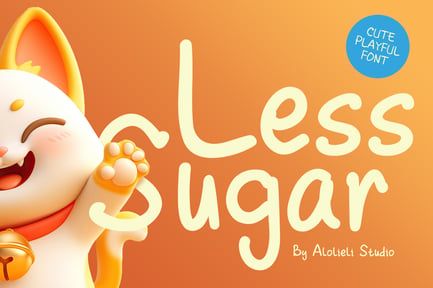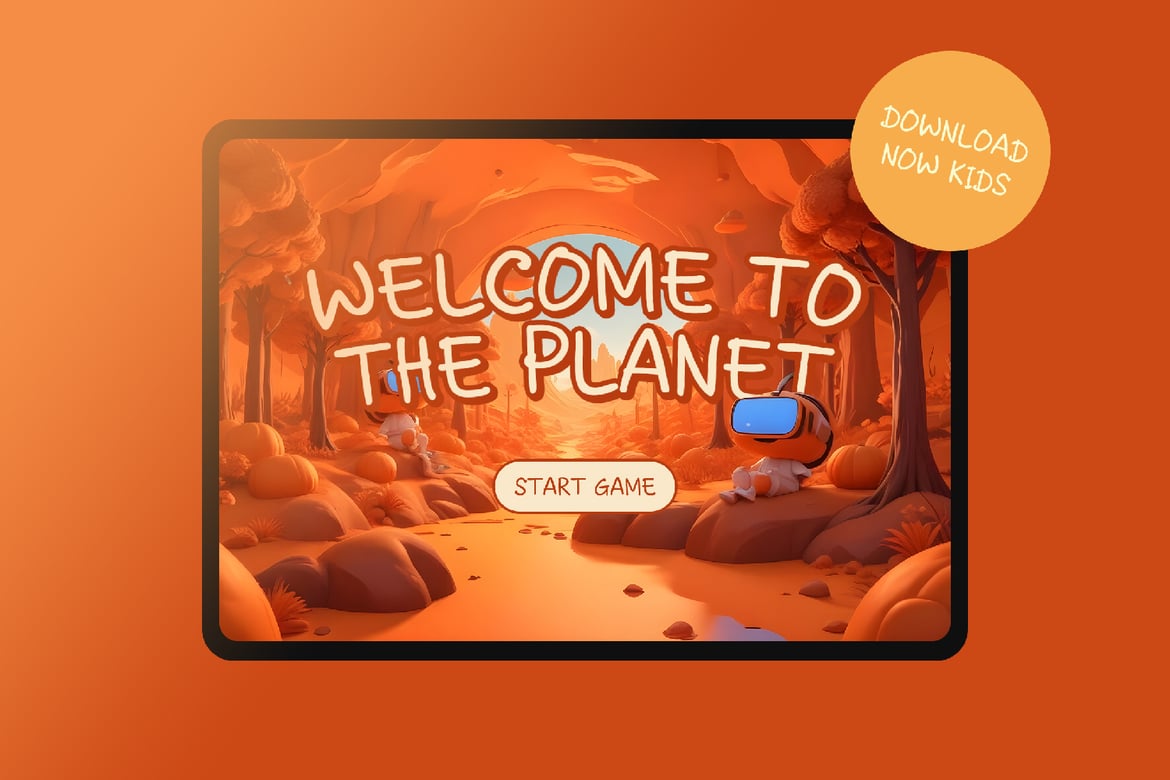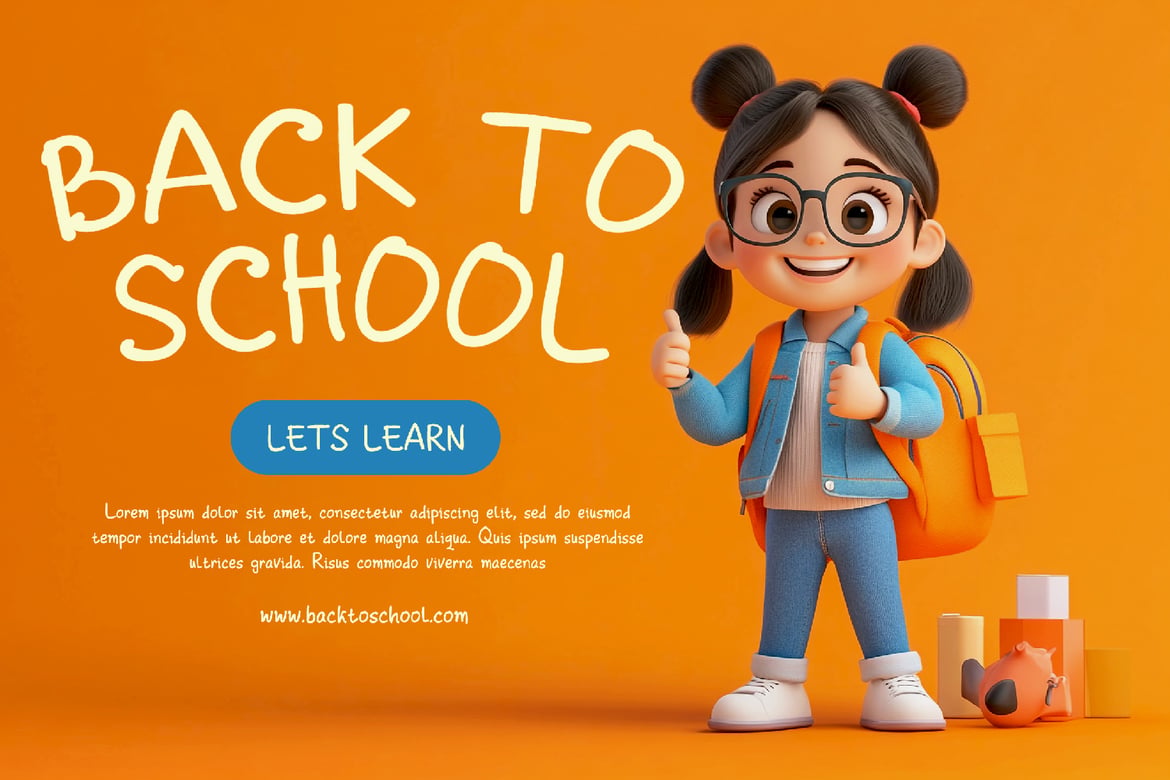
Less Sugar – Cute Playful Font by Alolieli Studio
* Perfect for children’s projects, branding, and social media
* Smooth, rounded characters for a friendly appearance
* Works beautifully on both digital and print designs